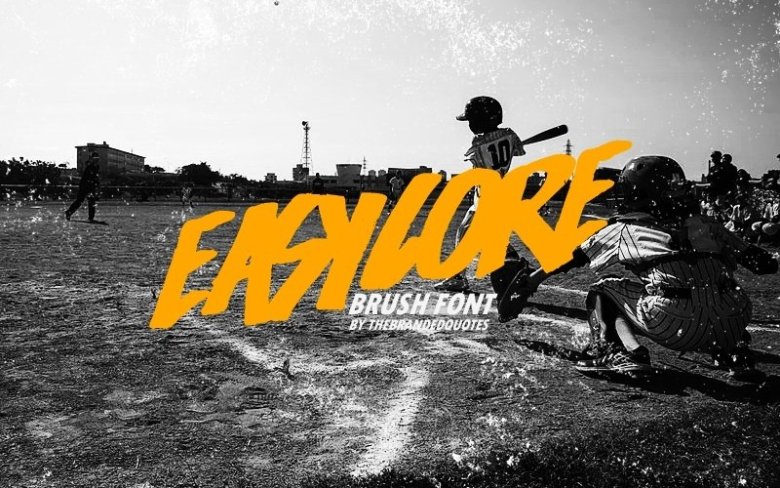
Easycore Font
Easycore is a font inspired by Pop Punk/Rock/Hardcore Music and the Skateboarding world. Works with your band name, album covers and hand-painted style projects. Enjoy!